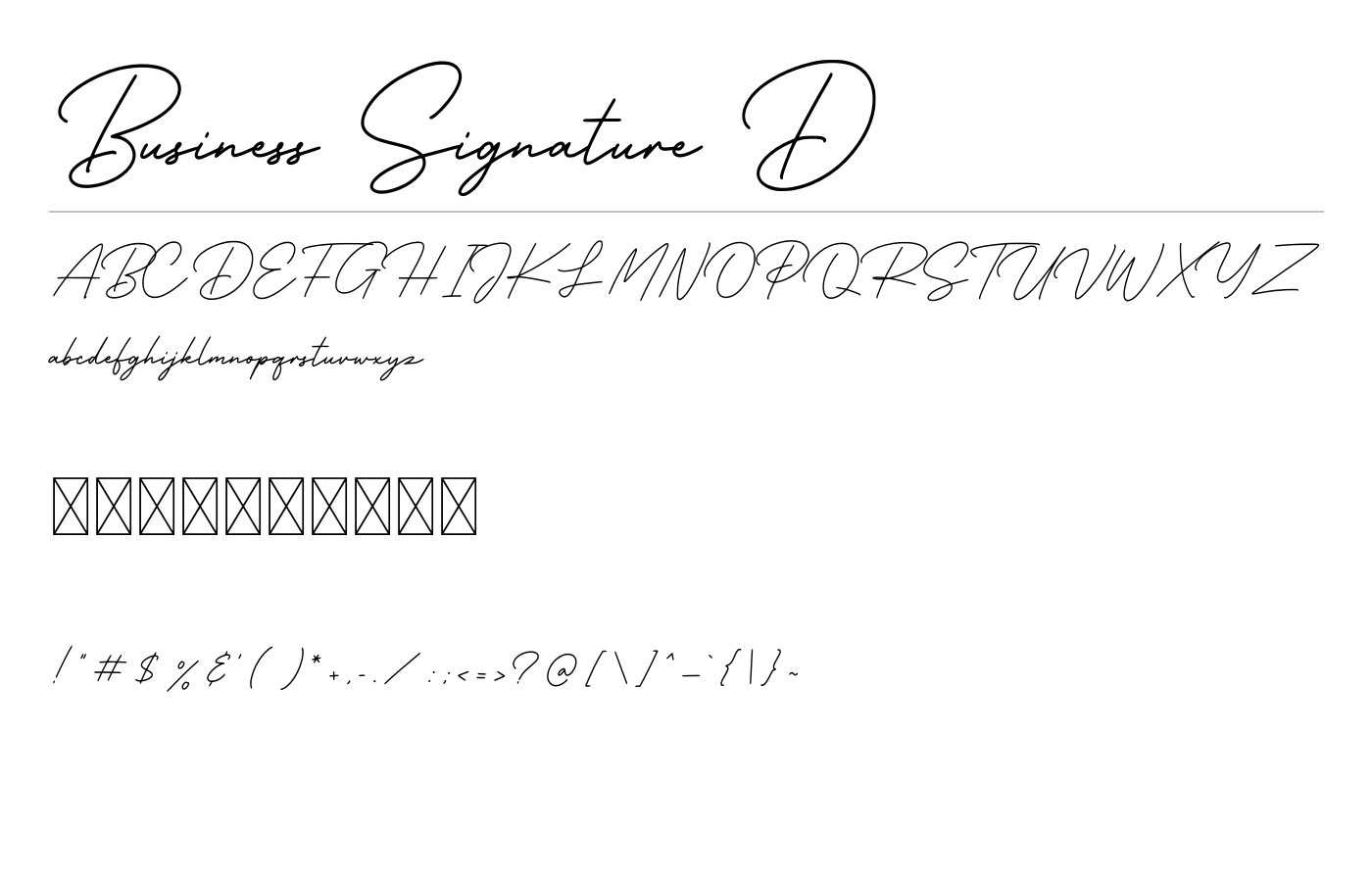
Business Signature D is an elegant, handwritten script font with a flowing and delicate style that mimics natural cursive signatures. Its thin, refined strokes and slender letterforms create a sophisticated and personal feel, making it ideal for branding, invitations, and luxury design projects where a touch of elegance and individuality is desired. This font works beautifully for logos and headers where a graceful, stylish impression is important, but less suited for long body text due to its light weight and intricate details.
Business Signature D Font
About Business Signature D Font
| Font family | Business Signature D Font |
| Designer | Sigit Dwipa |